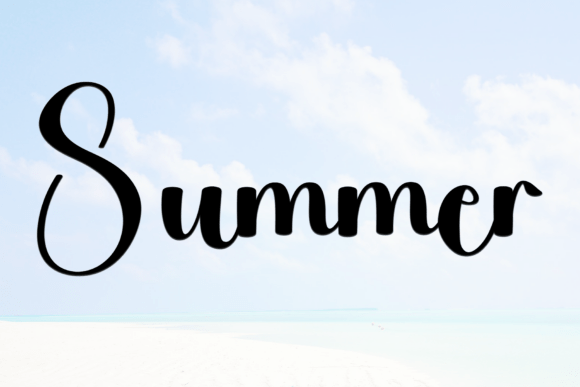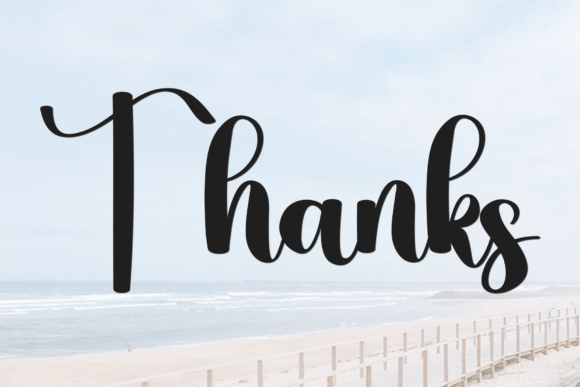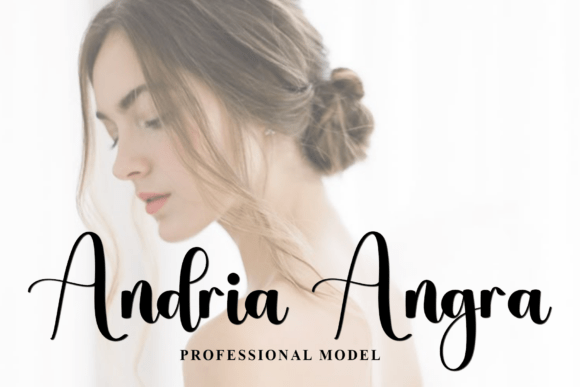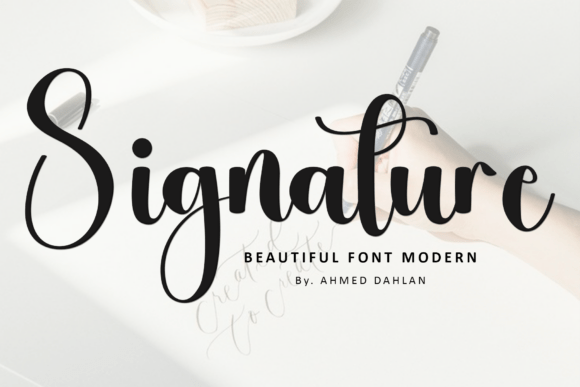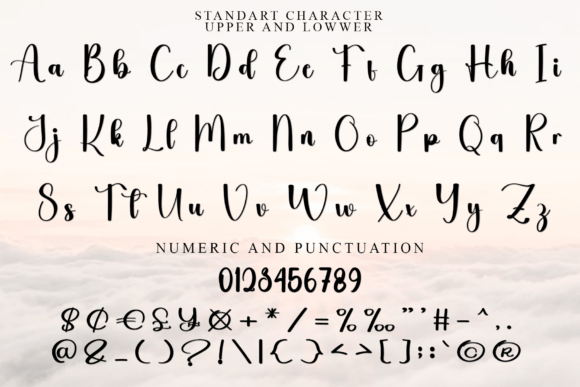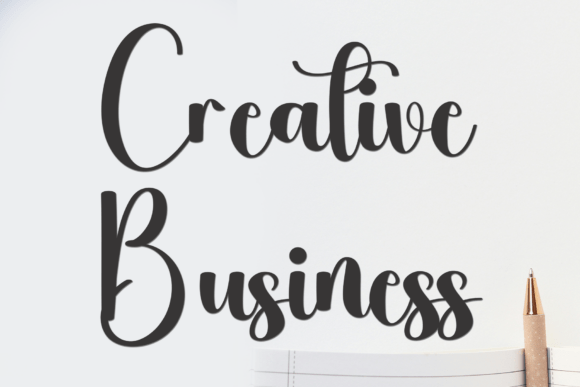
Introducing Happy Wednesday Font: Elevate Your Designs with a Unique Touch
Are you tired of using the same old fonts in your designs? Look no further than the Happy Wednesday Font, a beautiful and eye-catching typeface that adds a soft, unique touch to any project. With its distinctive strokes and special character, this font is sure to make your designs stand out and leave a lasting impression on your audience.
What Makes Happy Wednesday Font So Special?
Happy Wednesday Font is designed with a unique and distinctive style that sets it apart from other fonts. Its soft and natural look makes it perfect for a wide range of design projects, from crafts and creative works to digital and print designs. The font’s versatility is due in part to its various characters, which can be used to add a personal touch to any design.
Key Features of Happy Wednesday Font
- Unique and Distinctive Strokes: Happy Wednesday Font features distinctive strokes that give it a special character, making it meaningful and versatile for future use.
- Variety of Characters: The font comes with a range of characters, making it perfect for design projects, crafts, and other creative works.
- Natural Font Style: The font’s natural style makes it ideal for a wide range of products, from digital designs to print materials.
Why Designers and Crafters Love Happy Wednesday Font
Happy Wednesday Font is a favorite among designers and crafters due to its unique and versatile style. Here are just a few reasons why:
- Customization: Happy Wednesday Font can be customized to fit your design needs, making it perfect for branding, logos, and other design projects.
- Time-Saving: With its wide range of characters, Happy Wednesday Font saves designers and crafters time and effort, allowing them to focus on other creative aspects of their projects.
How to Use Happy Wednesday Font in Your Designs
Using Happy Wednesday Font in your designs is easy. Here are a few tips to get you started:
- Pair it with Other Fonts: Happy Wednesday Font pairs well with other fonts, making it perfect for use in combination with other typefaces.
- Experiment with Colors: The font’s natural style looks great in a range of colors, from bold and bright to soft and pastel.
- Use it in Digital and Print Designs: Happy Wednesday Font is perfect for use in both digital and print designs, making it a versatile addition to your design toolkit.
In conclusion, Happy Wednesday Font is a beautiful and eye-catching font that adds a unique touch to any design project. With its distinctive strokes, variety of characters, and compatibility with various applications, it’s perfect for designers and crafters looking to elevate their designs. Whether you’re working on a digital project, crafting, or creating print materials, Happy Wednesday Font is sure to become a favorite in your design toolkit.